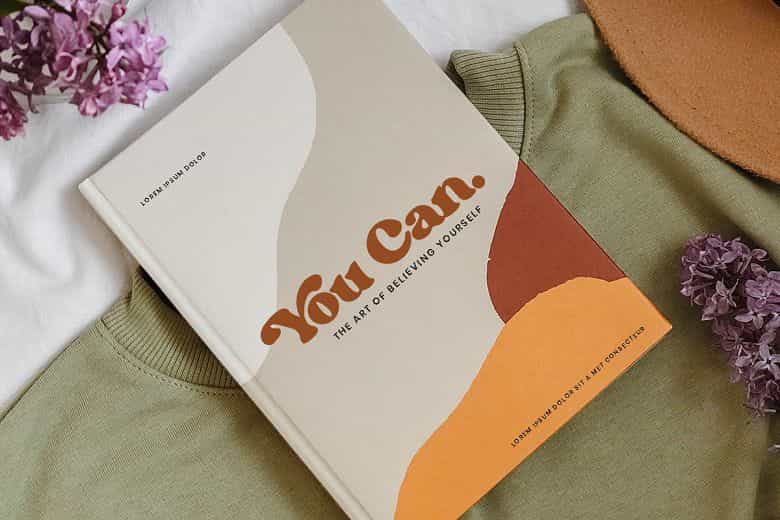
Margin is a retro bold font that belongs to the serif category that will surely draw attention. It has thick curves to give it a 70s funk feel but the serifs bring it back a little to the conventional. Margin works well with all those moods and feels one could associate with retro and vintage designs.